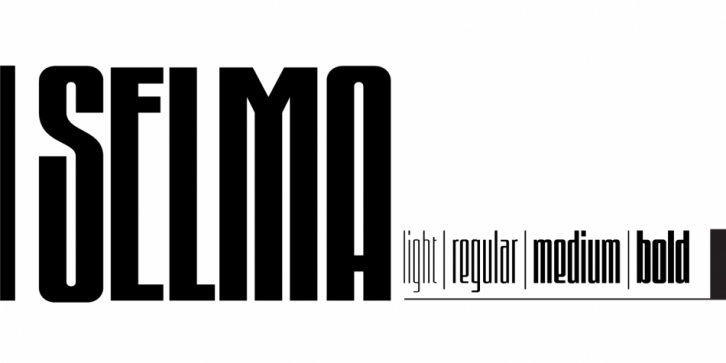
Selma is a display sans font family. This typeface has four styles and was published by Sea Types.
Selma is a family of Sans Serif fonts with 492 glyphs and 4 weights (Light, regular, medium and bold). The glyphs feature with long stems as they were inspired by bar codes.
The fonts have an extremely condensed vertical emphasis. Its bars positioned at the ends of the rods give a strong dose of personality and elegance to the design. Selma has a high x-height, giving strength and power of attraction for short texts and large sizes.